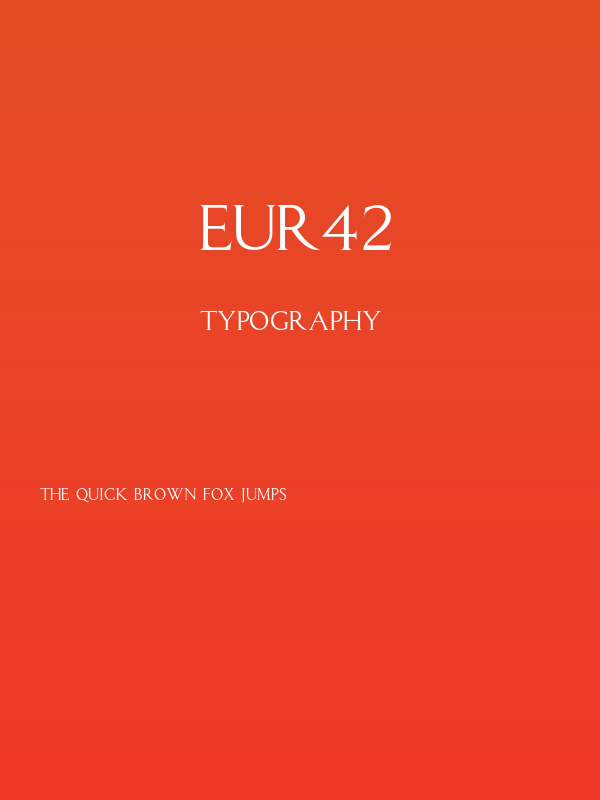
EUR42 Font
EUR42 Description
This font features a classic serif style with elegant, thin strokes and high contrast between thick and thin lines. The characters are well-proportioned, with a refined and sophisticated appearance. The uppercase letters are stately and commanding, while the lowercase letters maintain a graceful flow. The numerals are clear and distinct, complementing the overall aesthetic. The special characters are designed with the same attention to detail, ensuring consistency throughout the typeface.
| Proposed Projects | Ideal for formal invitations, editorial design, book covers, and luxury branding. |